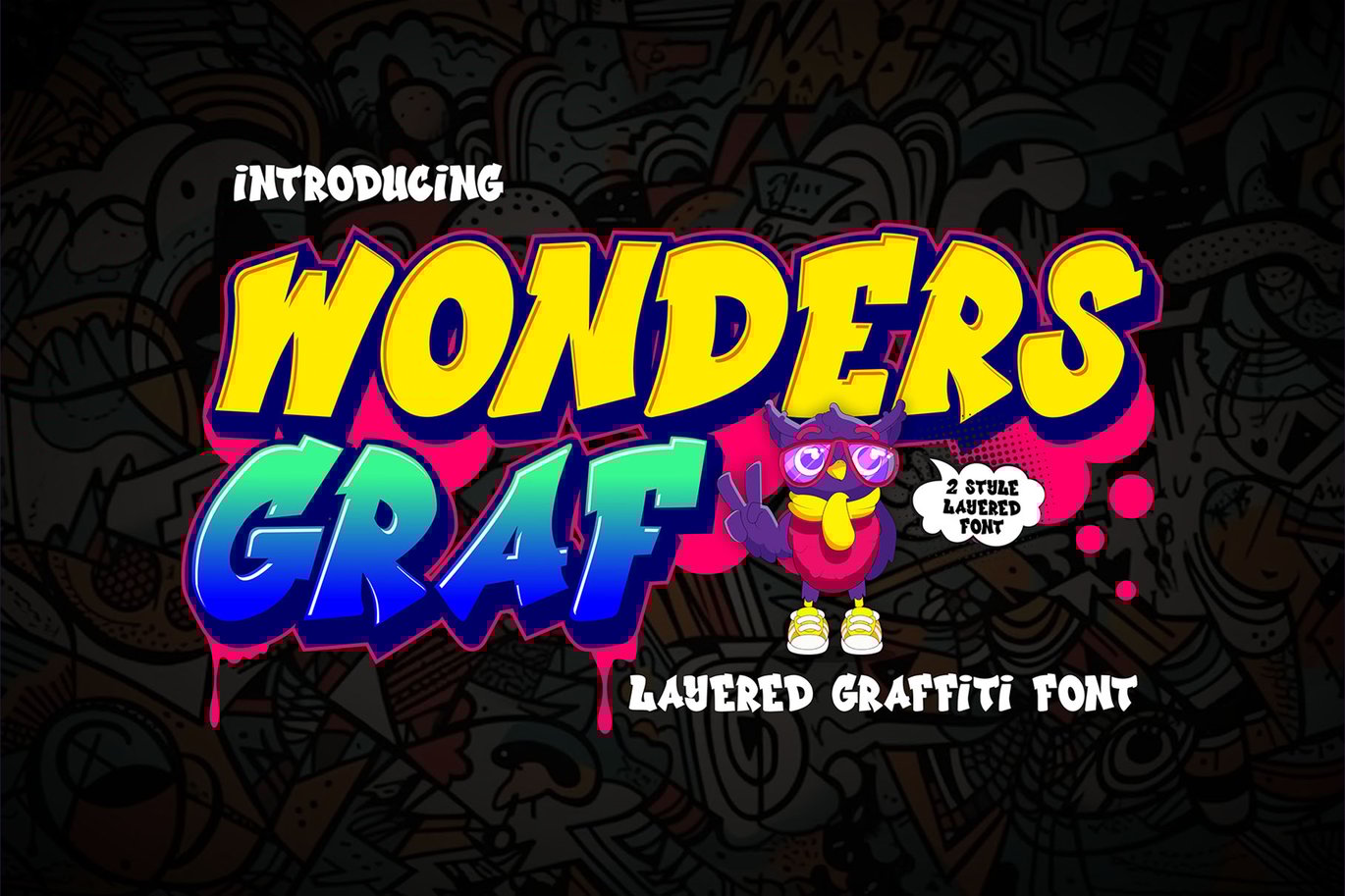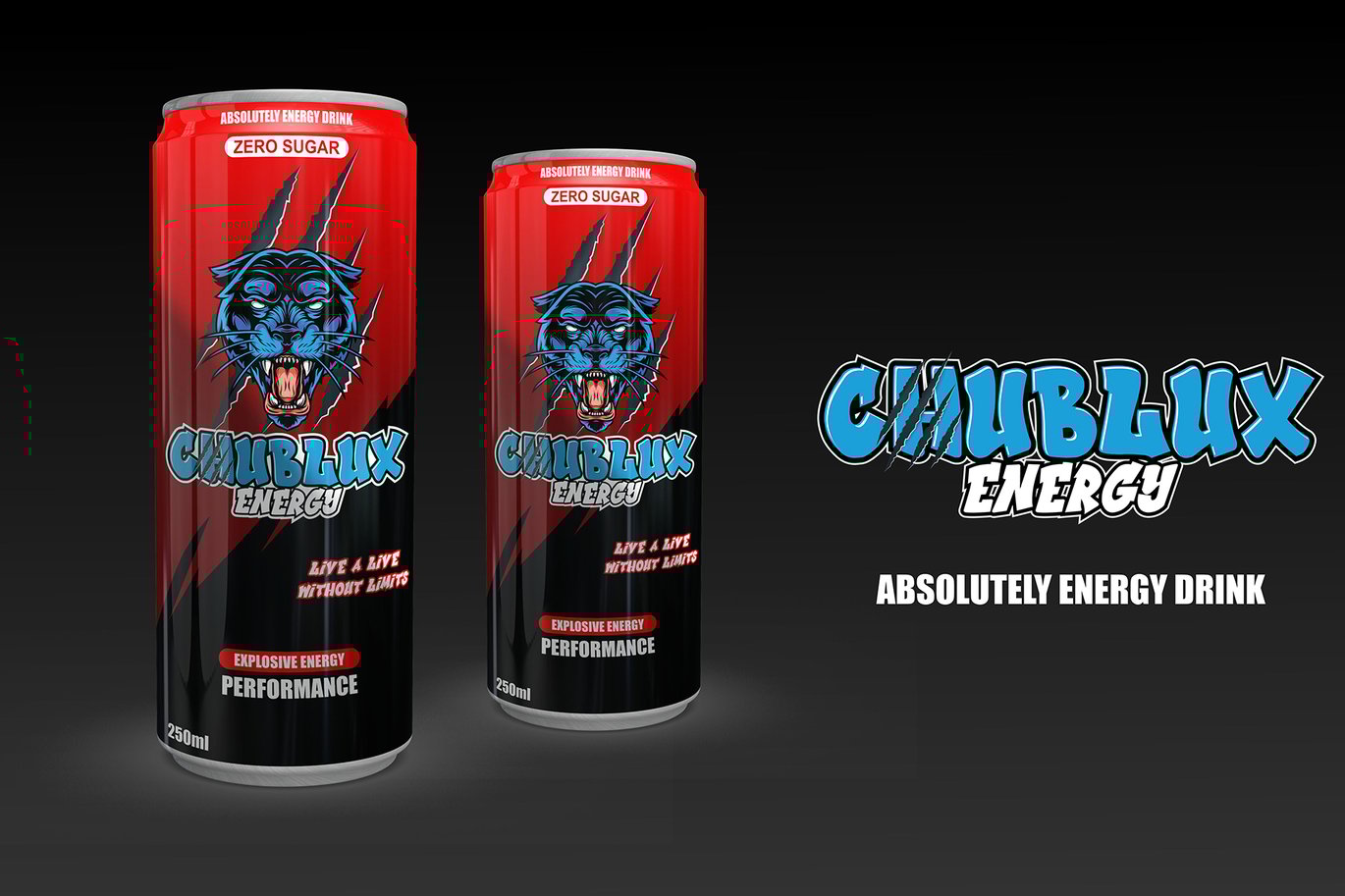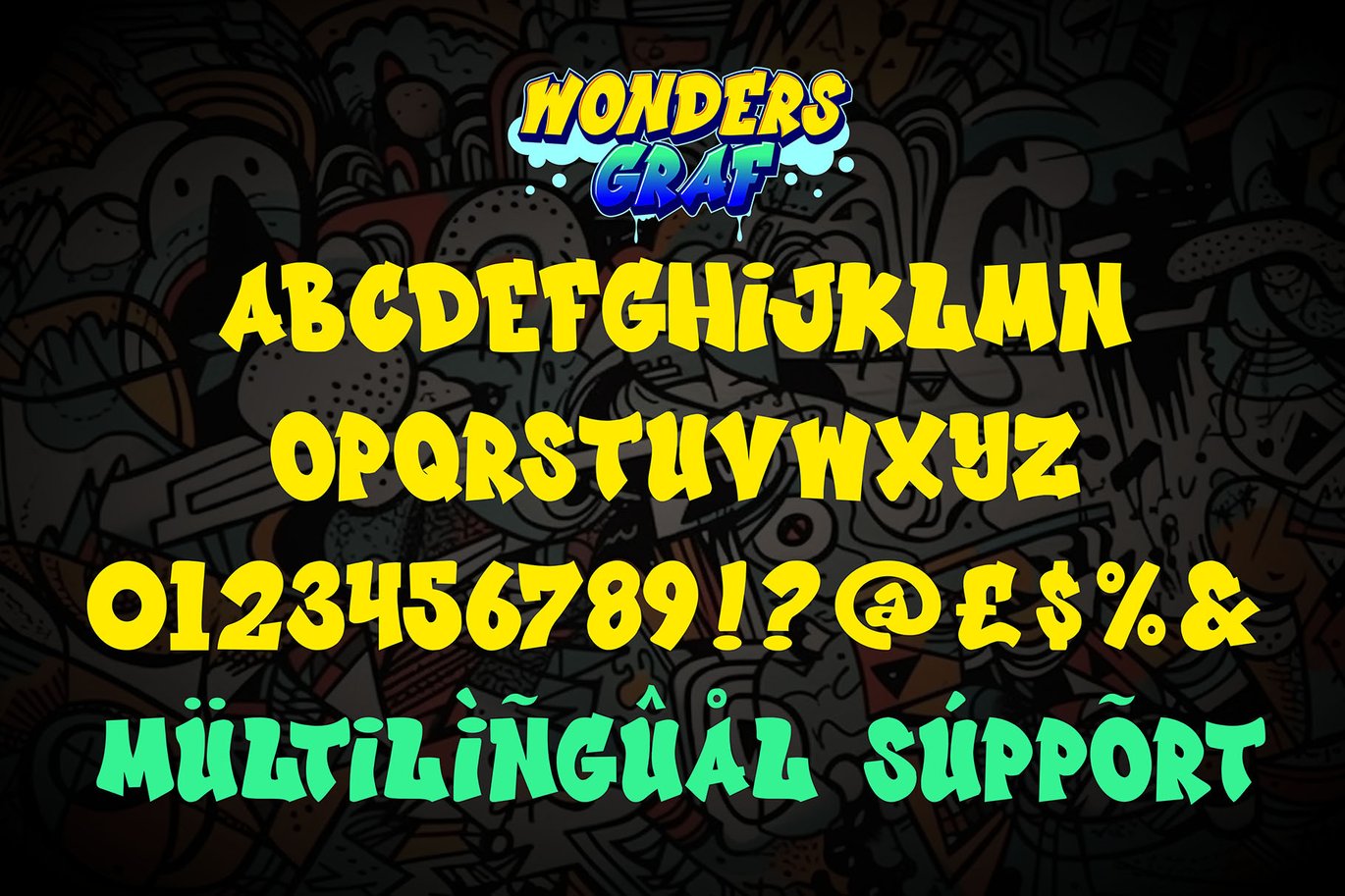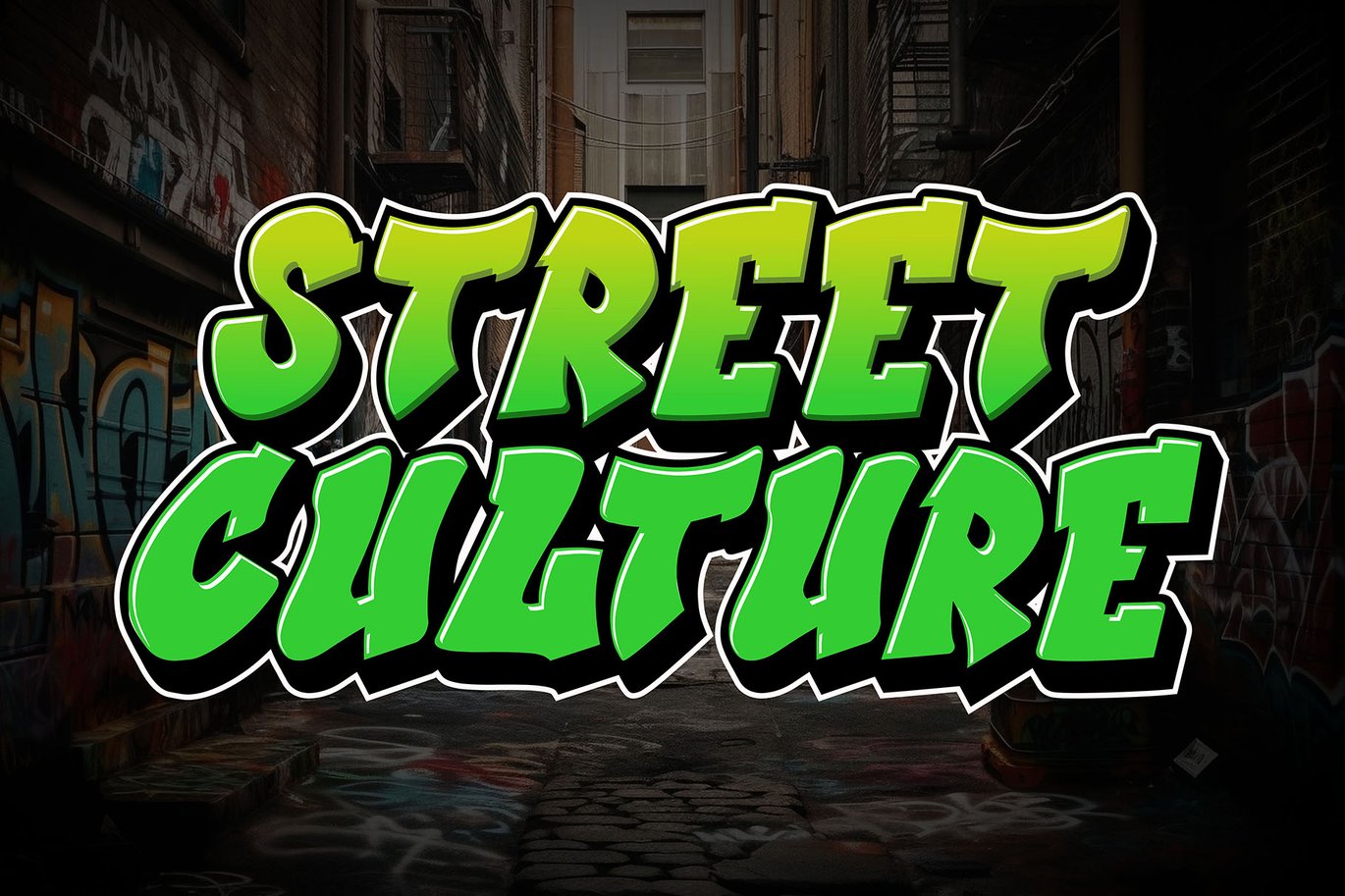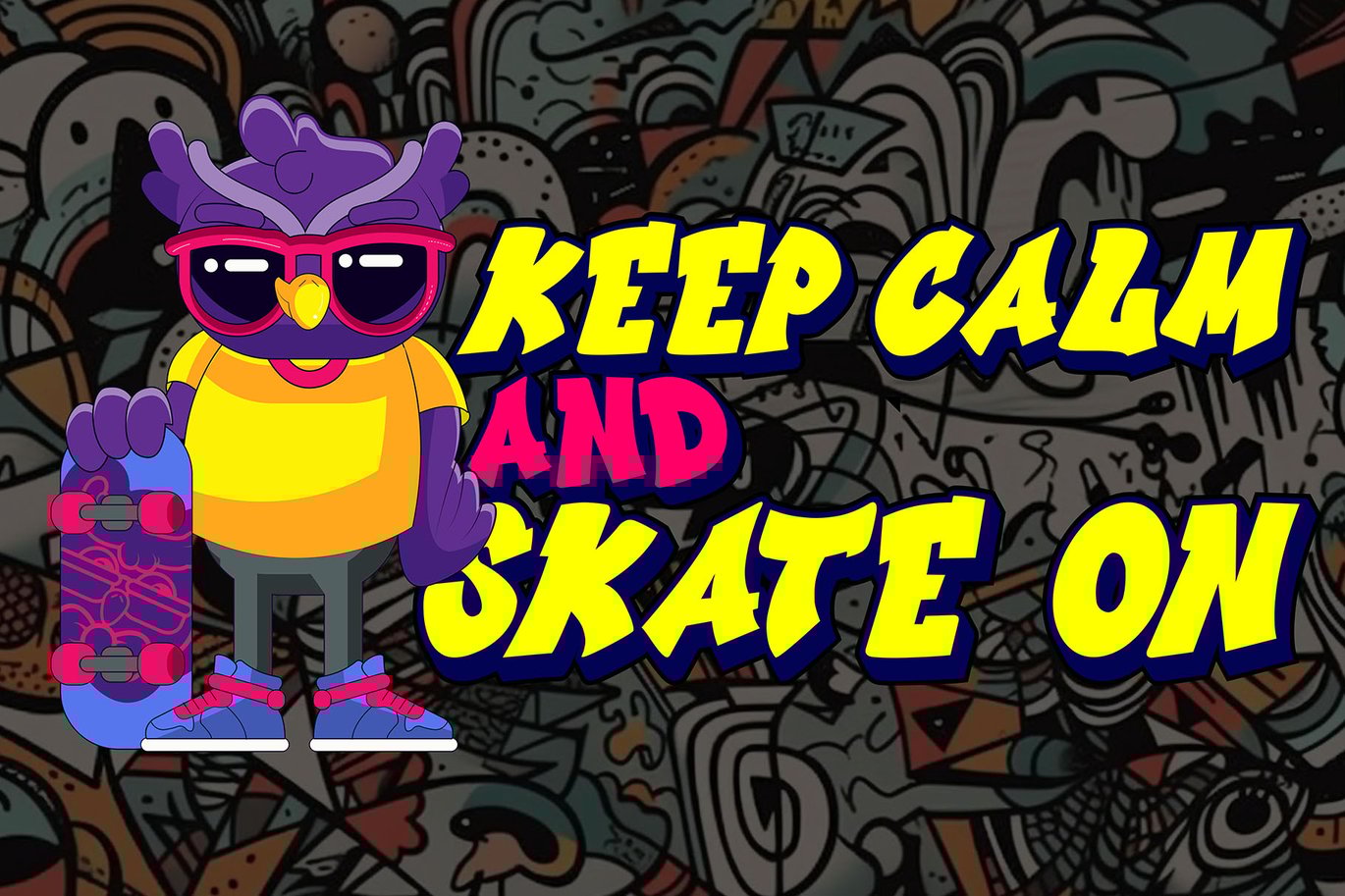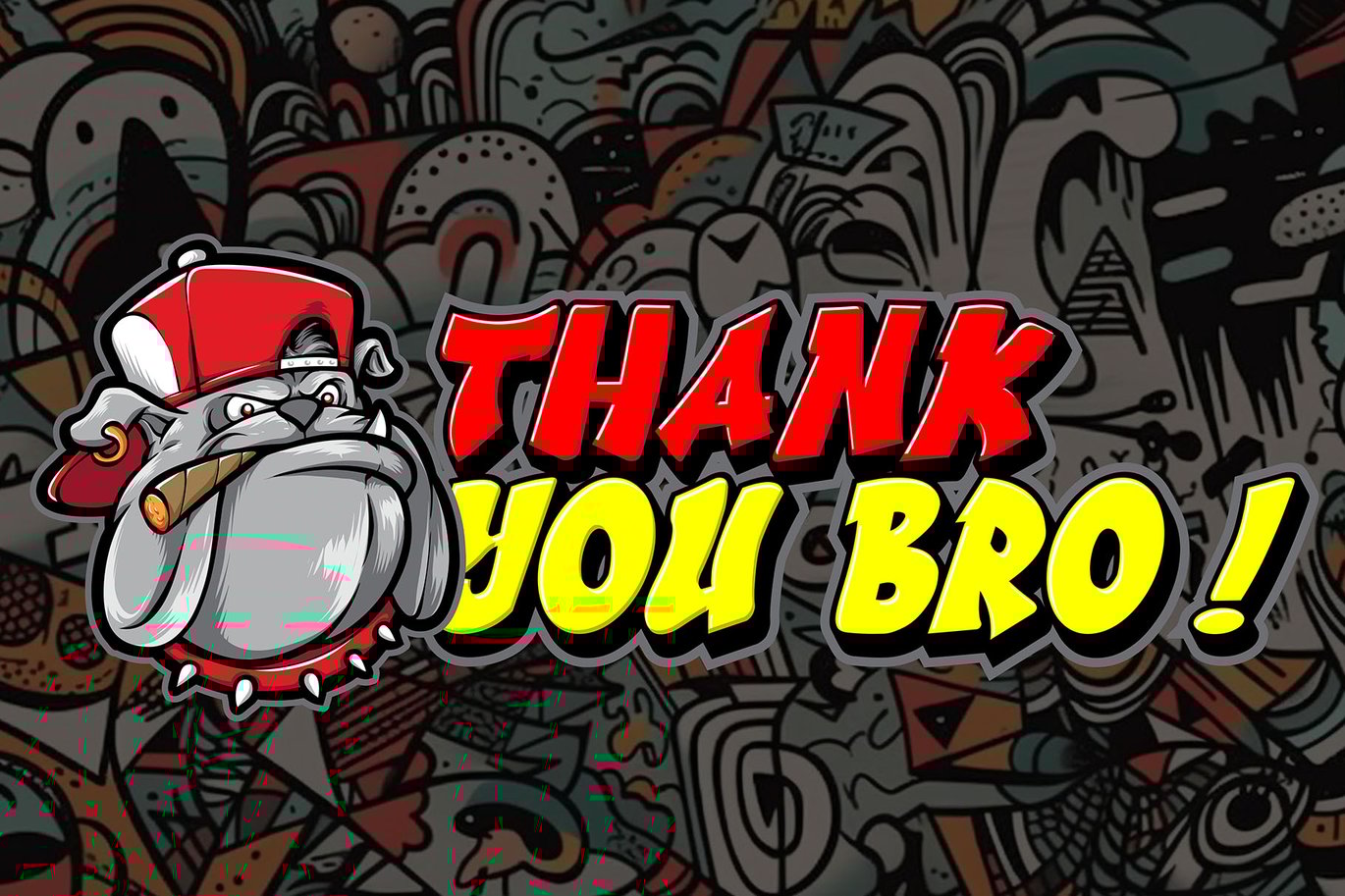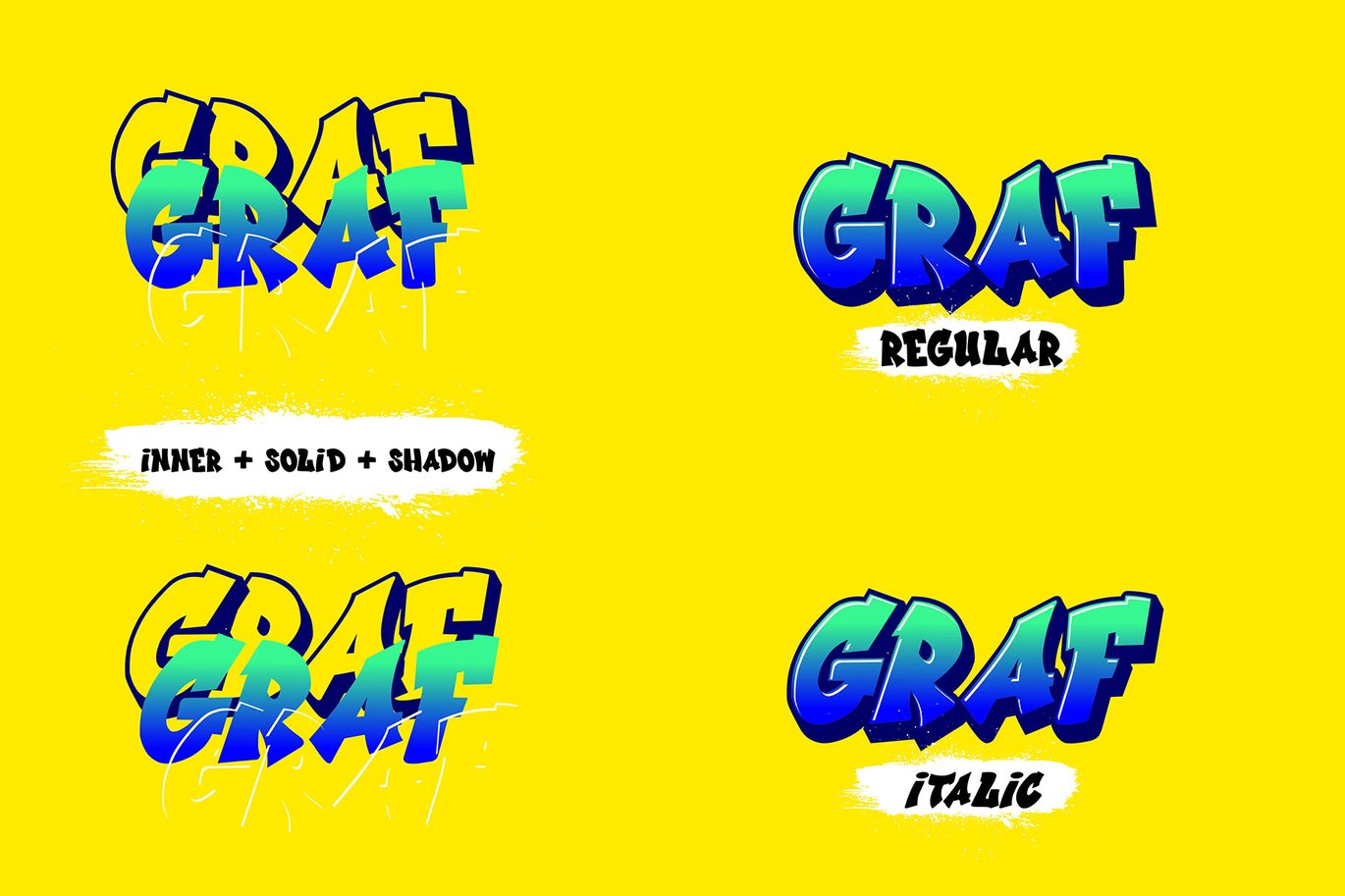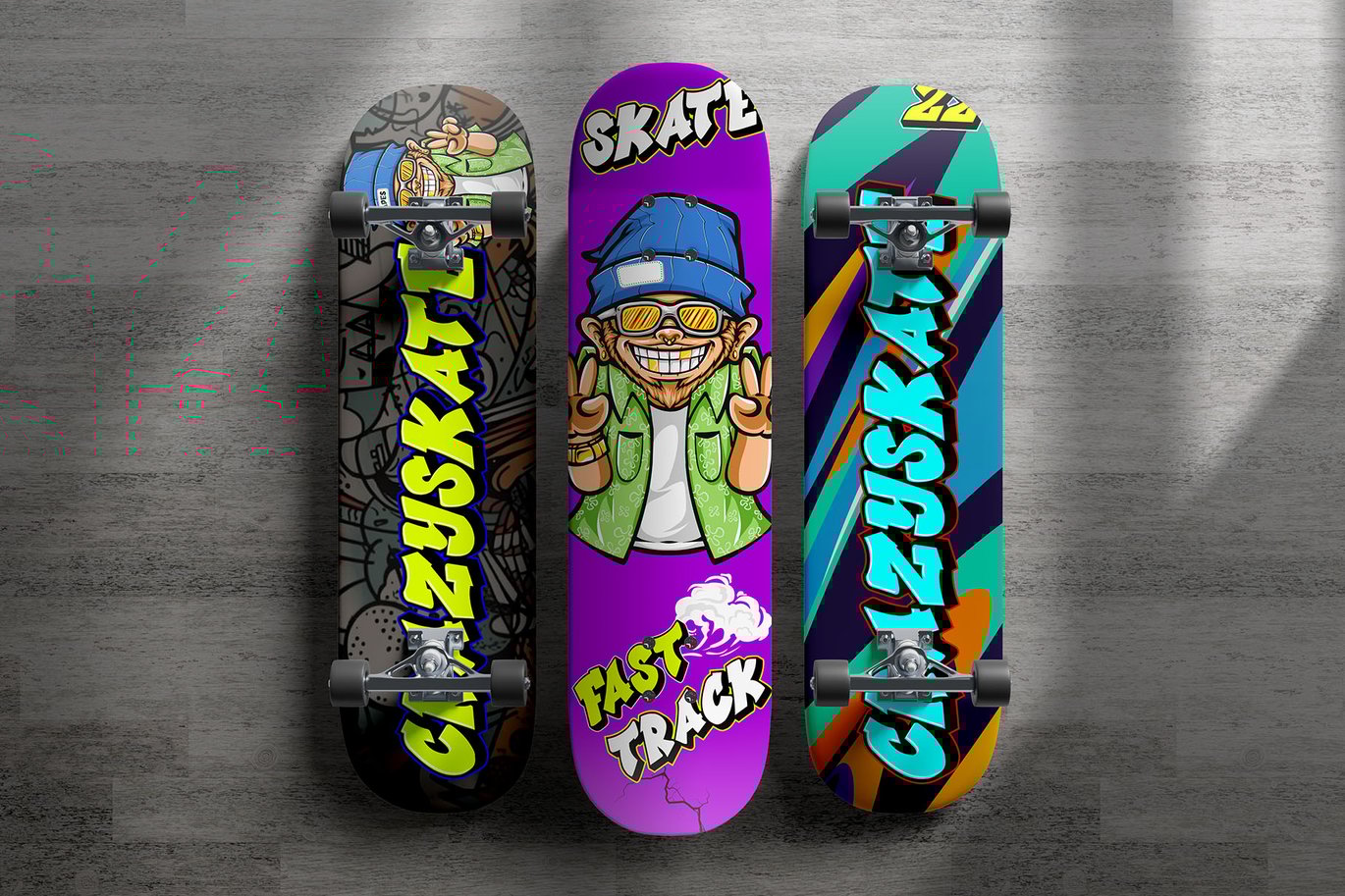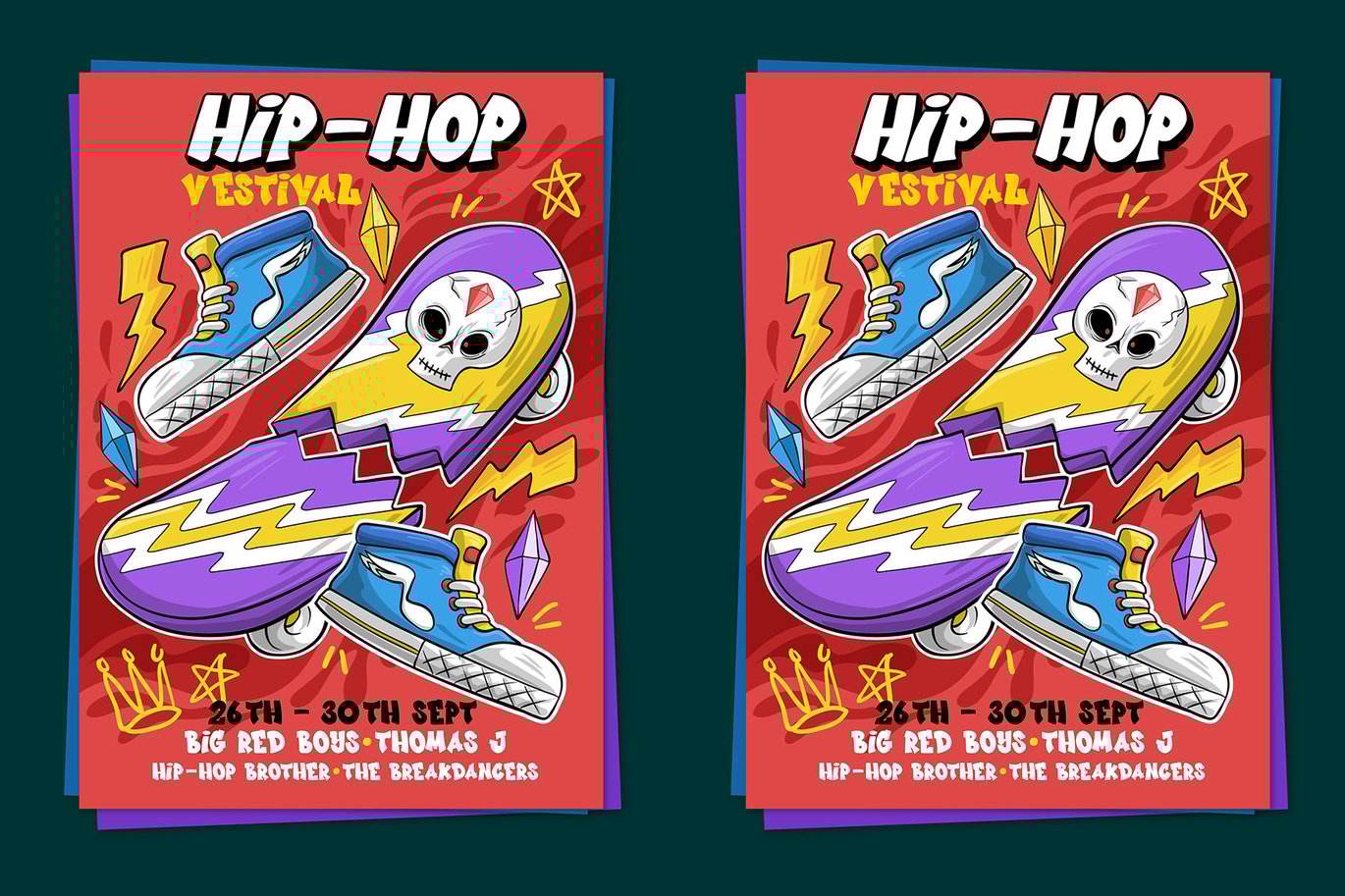
Wonders Graff – 3d Layered Graffiti Font
Wonder Graff is a graffiti font that features 3 different layers and multiple font styles. With these layers and font style variations, you can create intriguing effects in your design. The use of layers and font styles allows you to achieve more complex and creative looks.
Fonts like Wonder Graff are often used in street art, posters, or designs that want to emphasize bold and energetic typography. With different layer and style options, you have greater control over the appearance of your text and can customize it to fit your design concept.